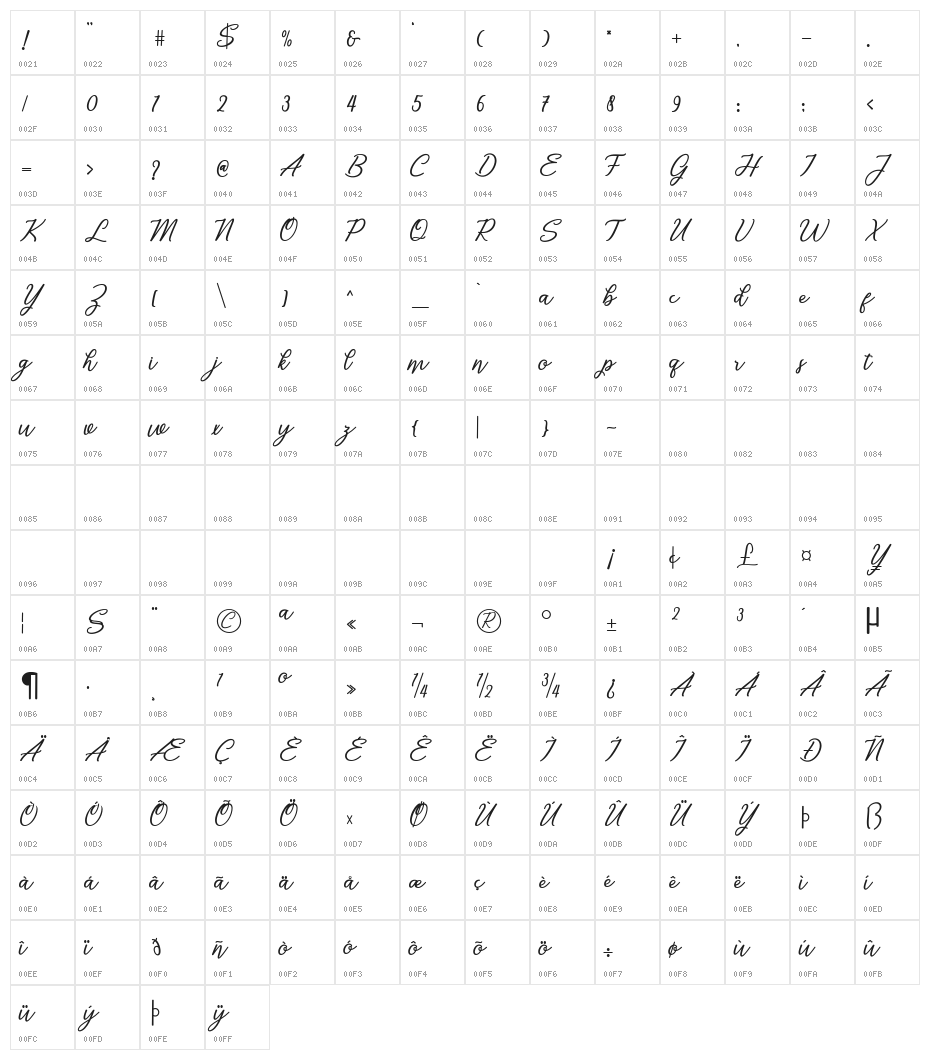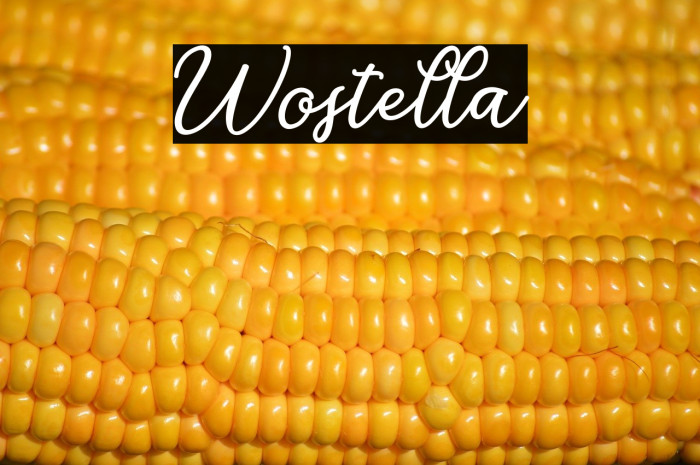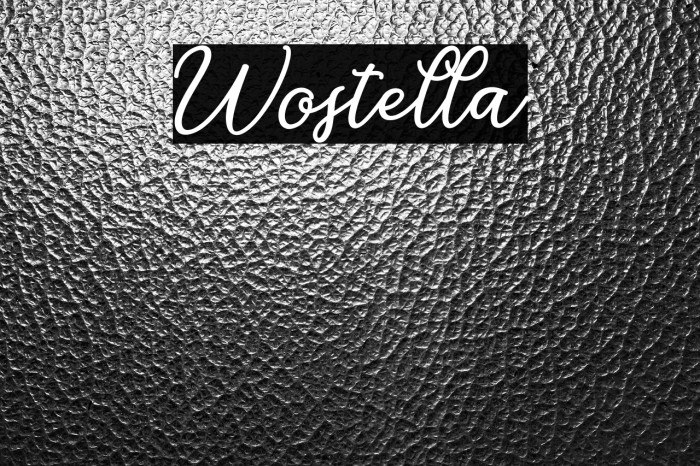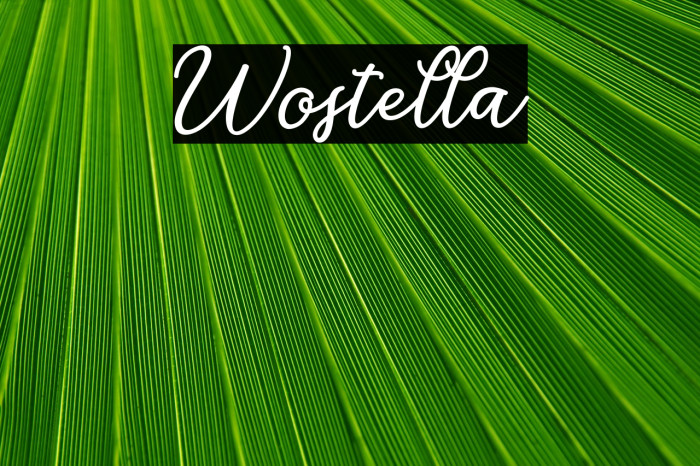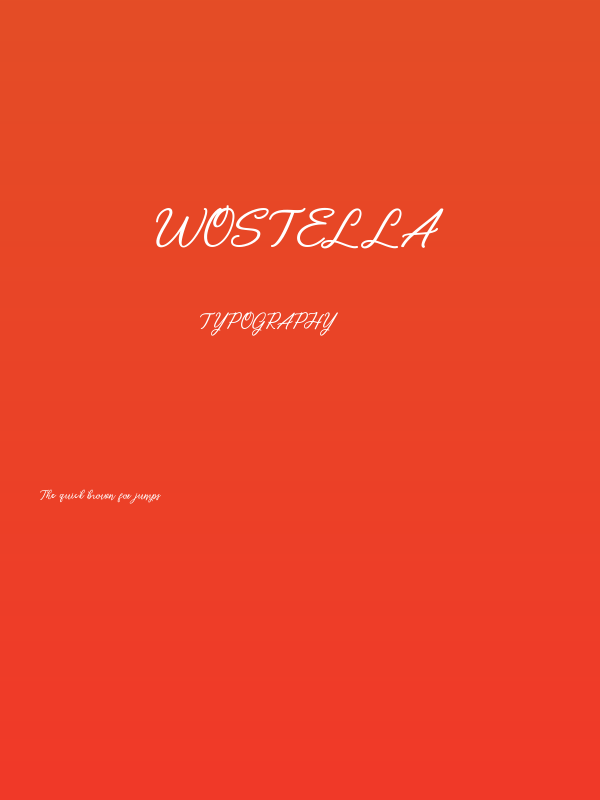
Wostella Font
Wostella Description
This elegant script font features a flowing, cursive style with smooth, connected strokes that emulate the fluidity of handwriting. The uppercase letters are slightly more formal, with a graceful slant and elongated forms, while the lowercase letters maintain a consistent rhythm and balance. The numerals are designed to complement the letterforms, offering a cohesive look across all characters. Special characters are included, maintaining the same stylistic elements, ensuring versatility in various design contexts. The font's overall appearance is sophisticated and stylish, making it suitable for projects that require a touch of elegance.
| Overall Style | Elegant |
| Use Case | Logos, Invitations, Decorative Headlines |
| Proposed Projects | Ideal for wedding invitations, elegant branding, personal stationery, and decorative headlines. |